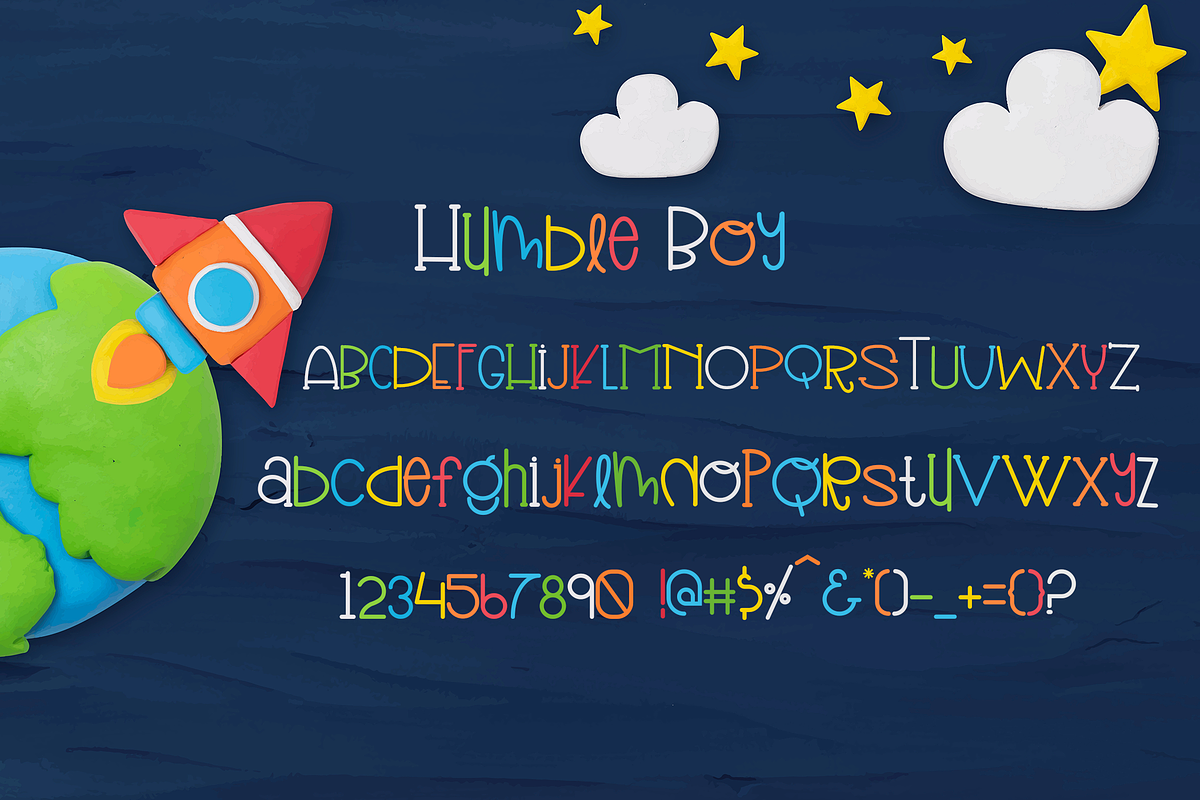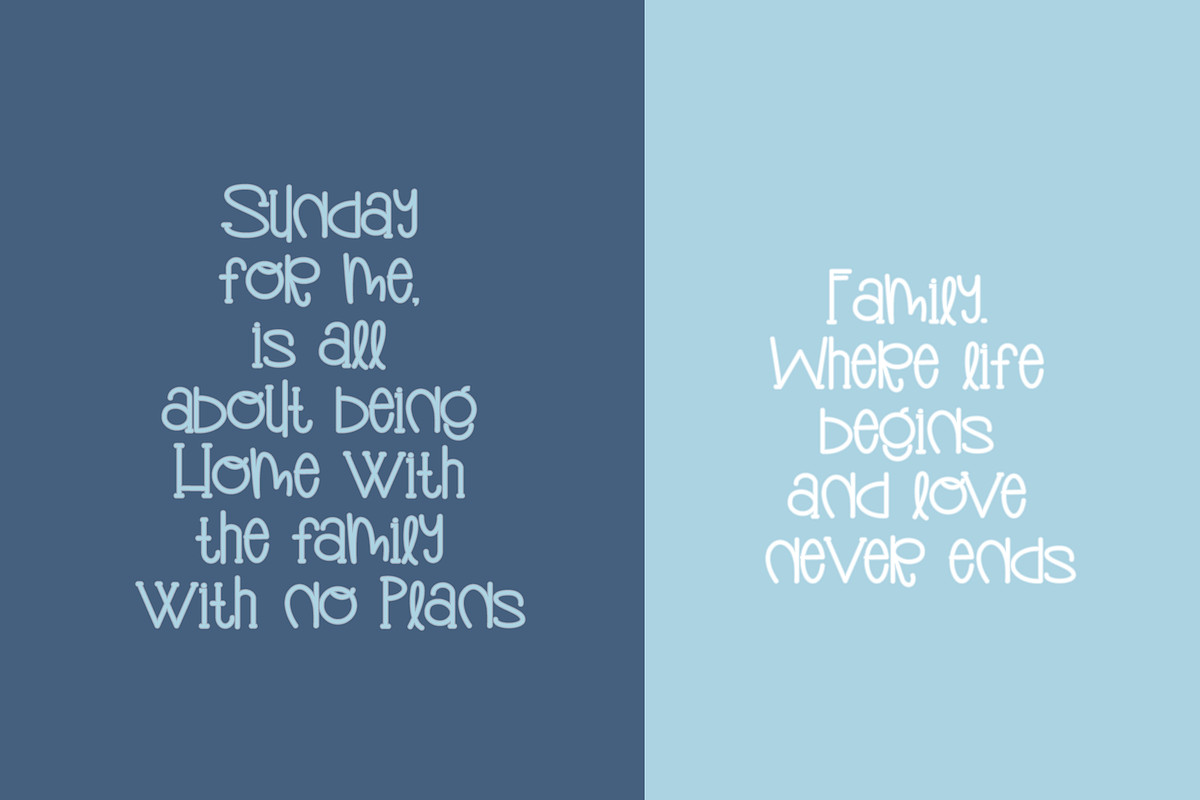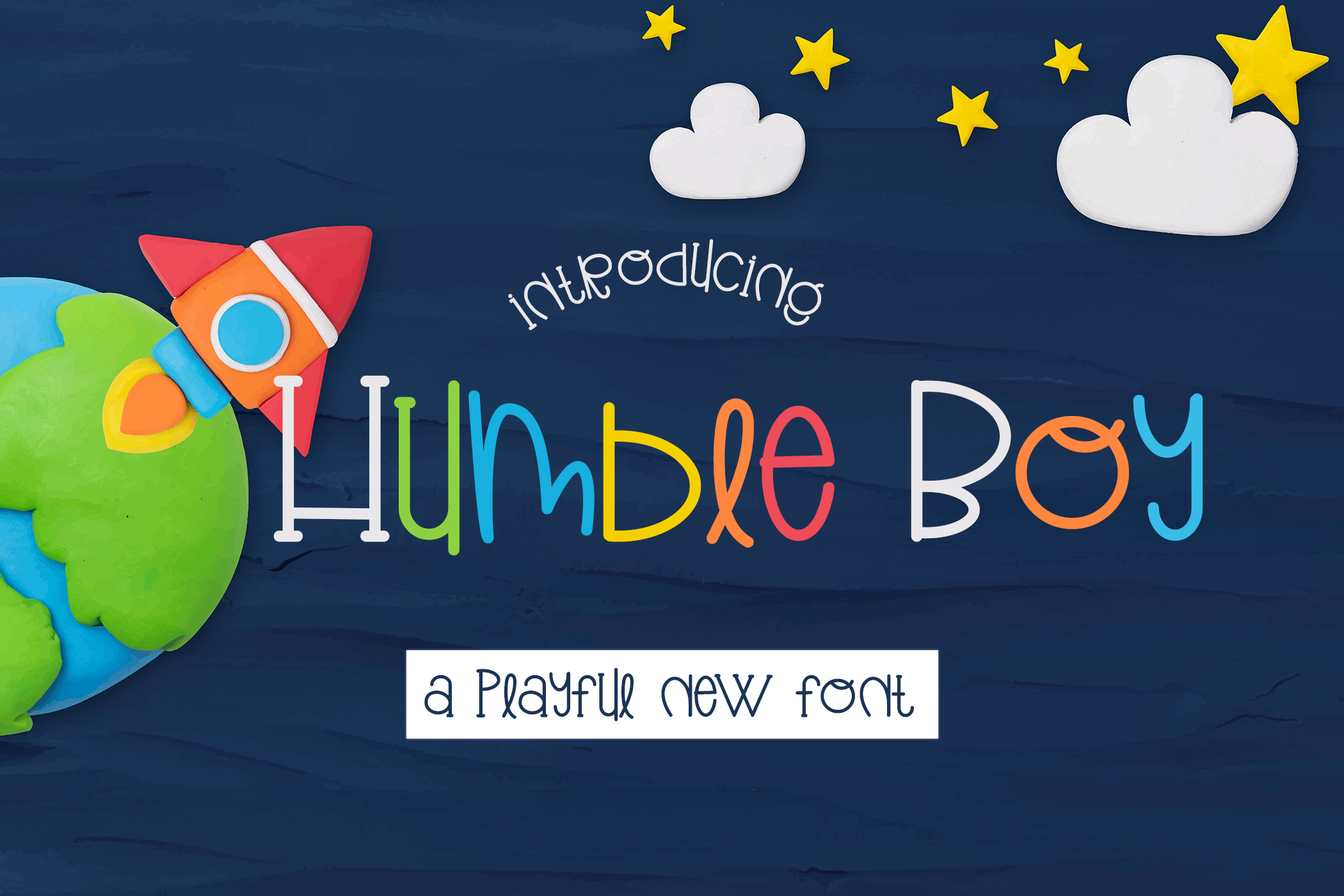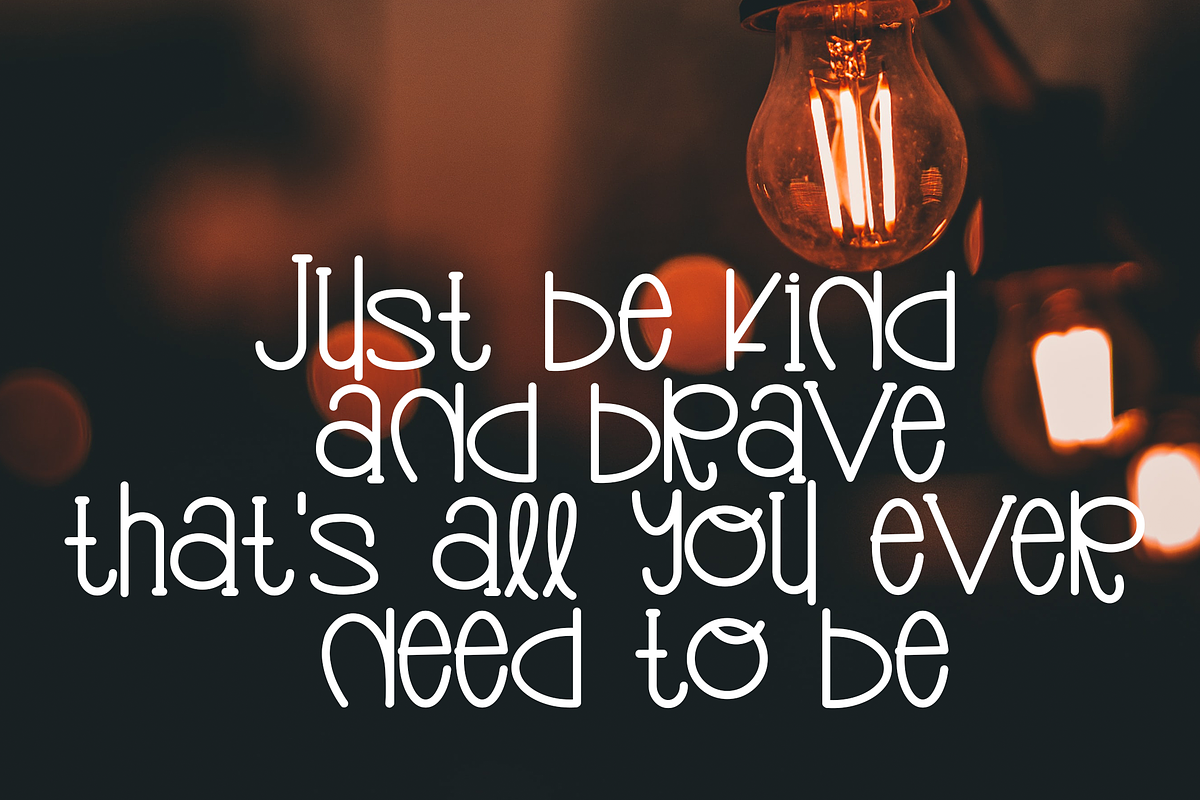
Humble Boy Font
Humble Boy is a cute and simple-lettered serif font that can be used for all chalkboard quotes or teaching material! Its authentic look will add a personal and realistic feel to your designs. This font is perfect for children-themed designs, especially when combined with bright colors.